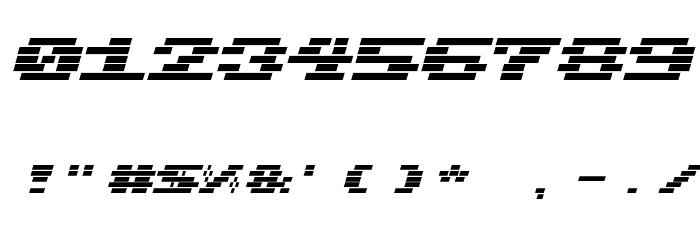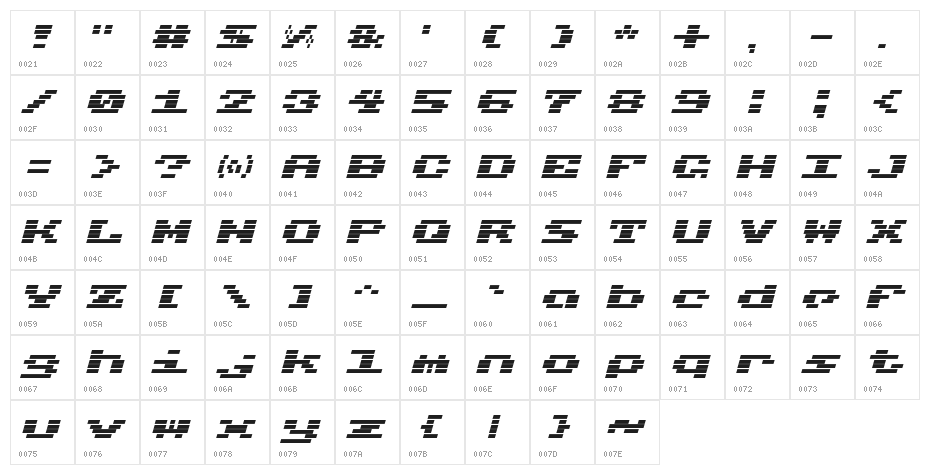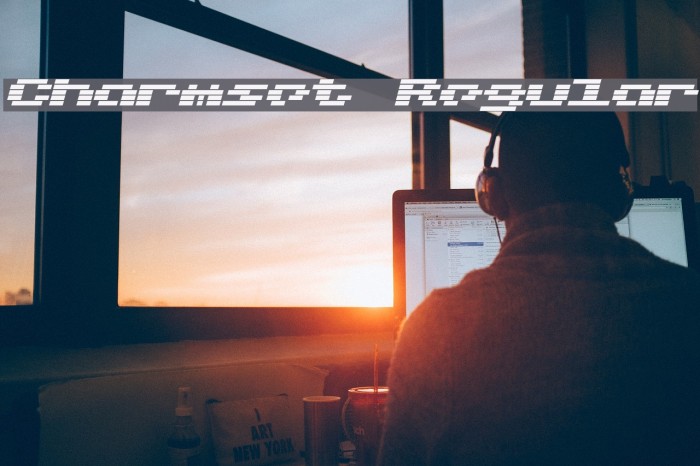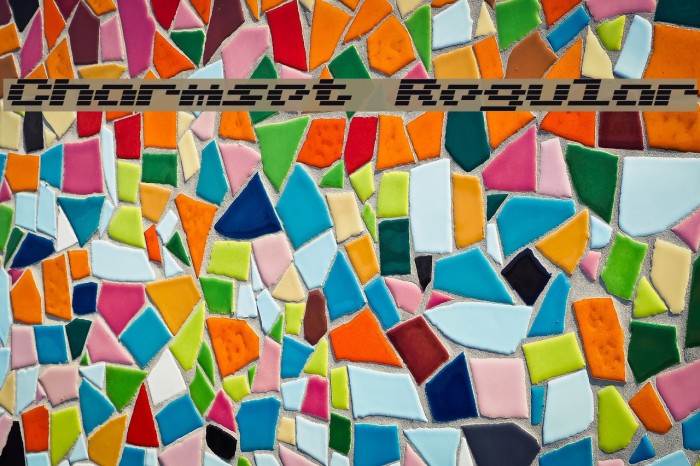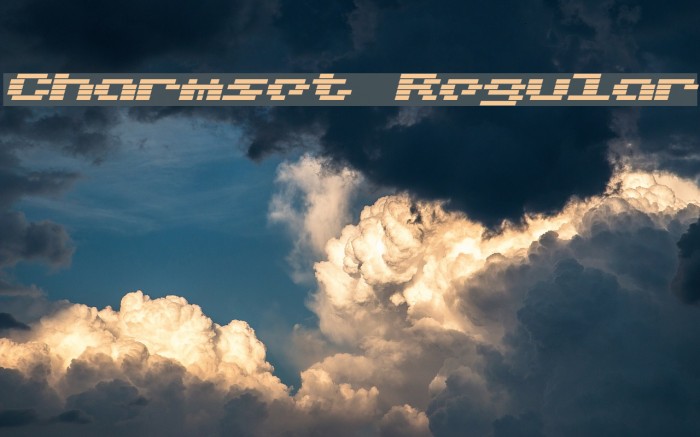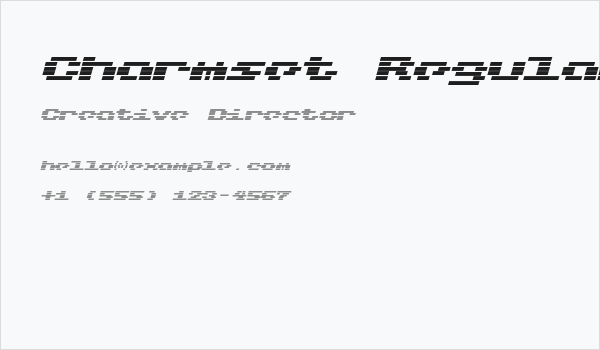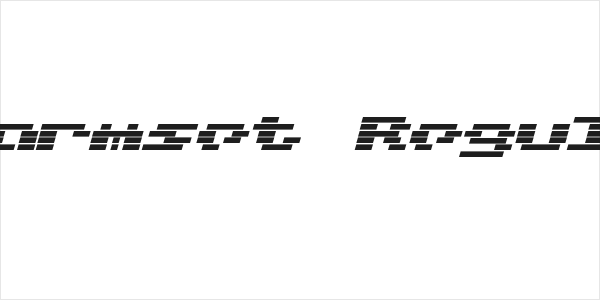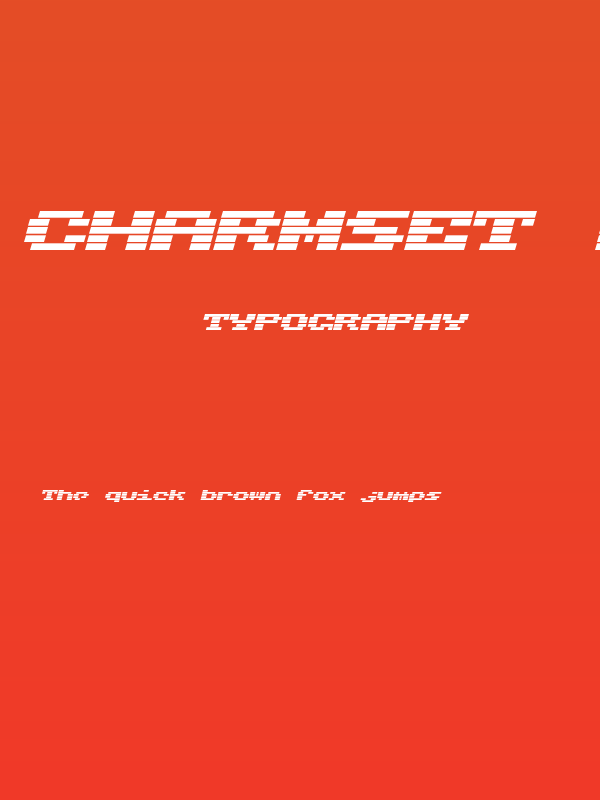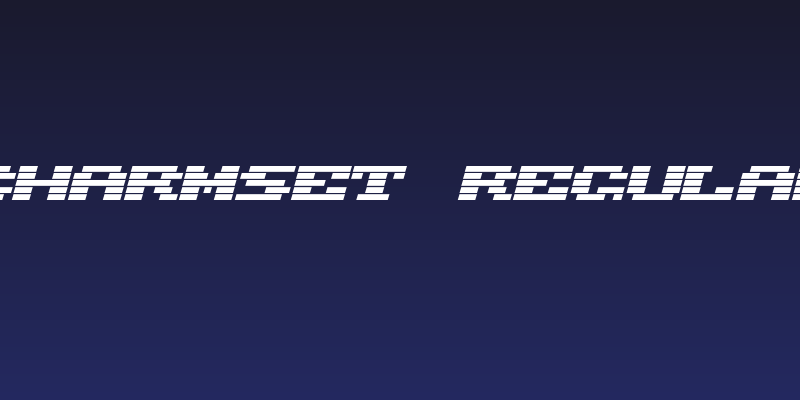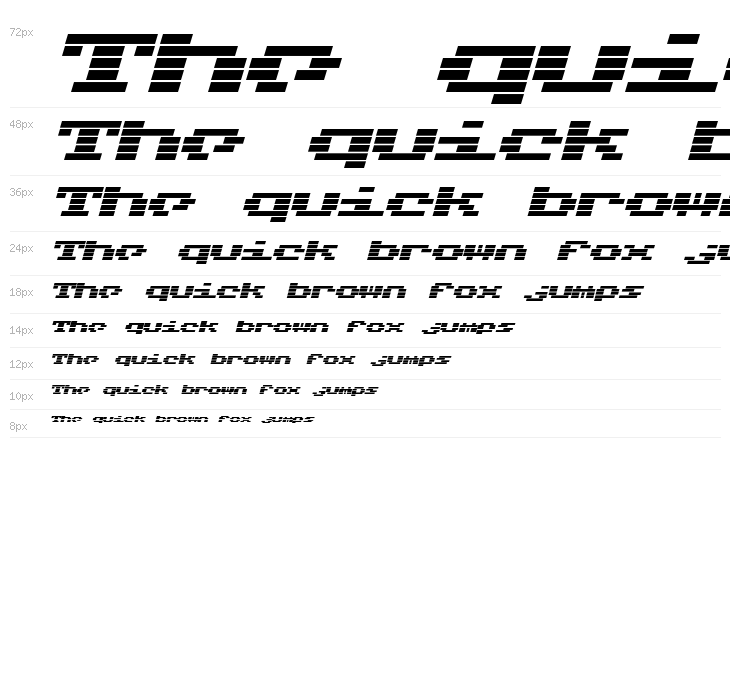
Charmset Regular Font
Charmset Regular Description
This font features a distinct, segmented design that gives it a futuristic and digital appearance. Each character is composed of horizontal stripes, creating a sense of movement and rhythm. The uppercase and lowercase letters maintain a consistent style, with sharp angles and a geometric structure. The numerals and special characters follow the same pattern, ensuring uniformity across the typeface. This font's unique style makes it stand out, ideal for projects that require a modern and tech-savvy look.
Proposed ProjectsIdeal for tech branding, digital art, video game interfaces, and modern posters.